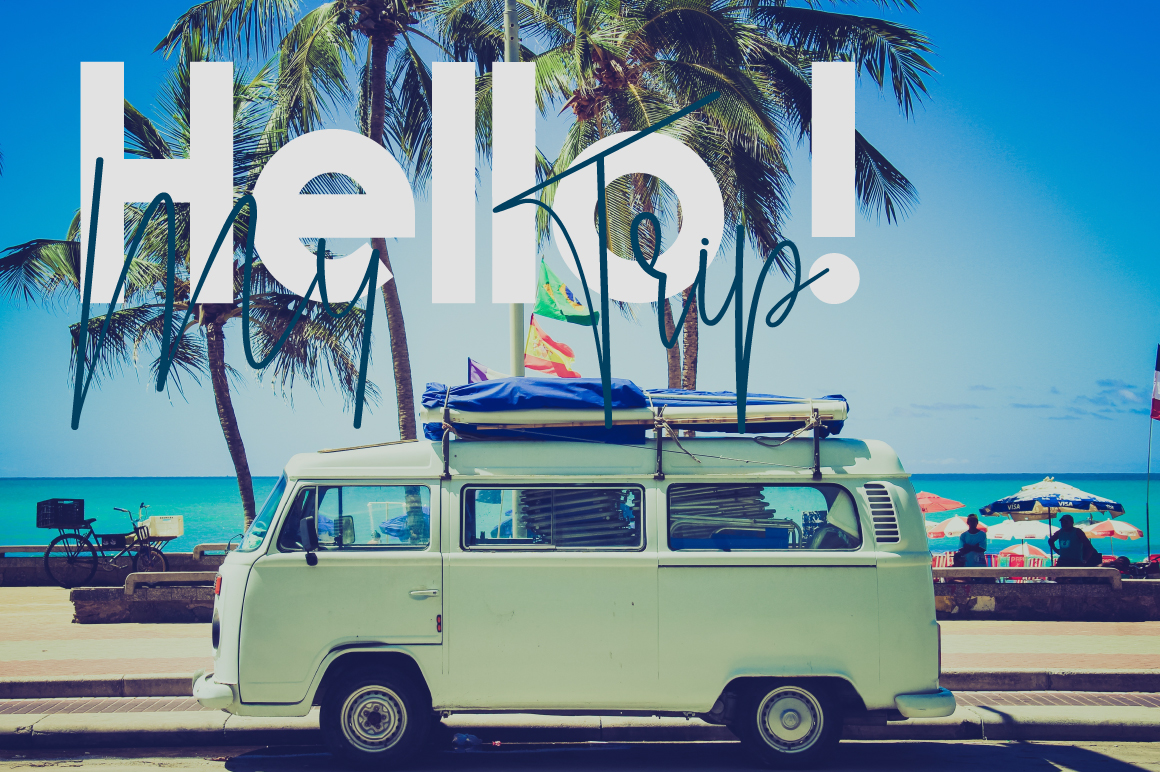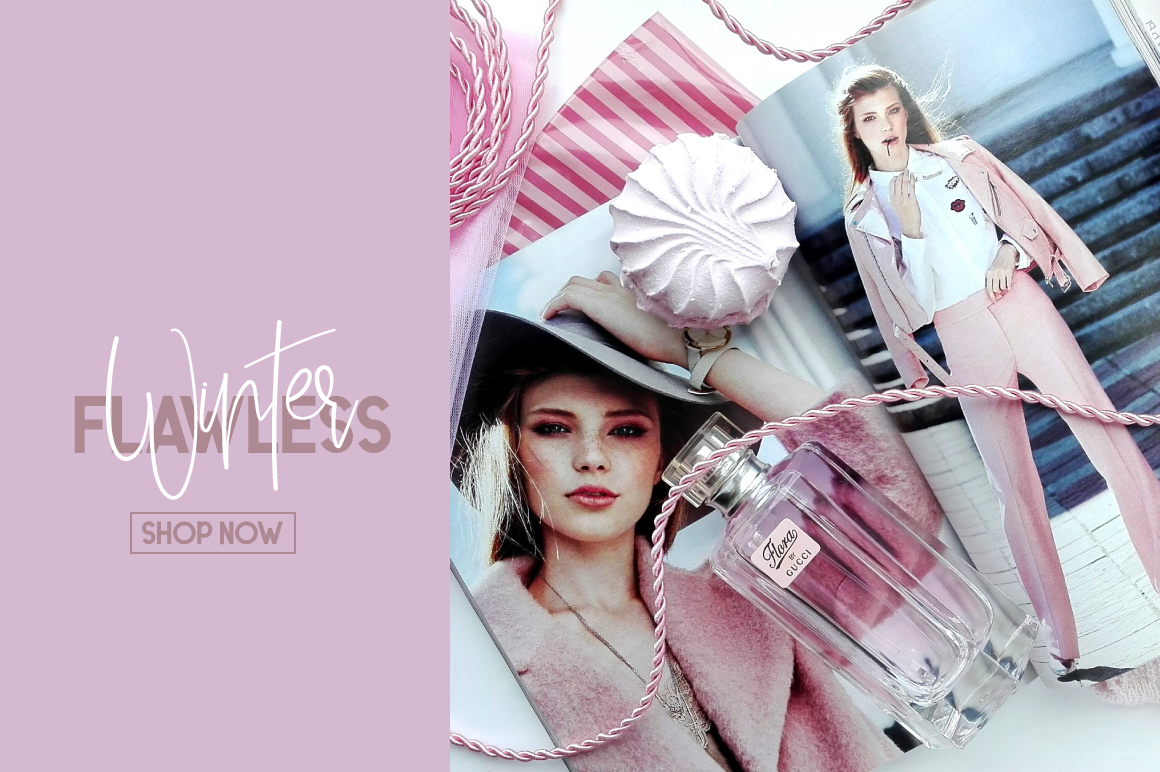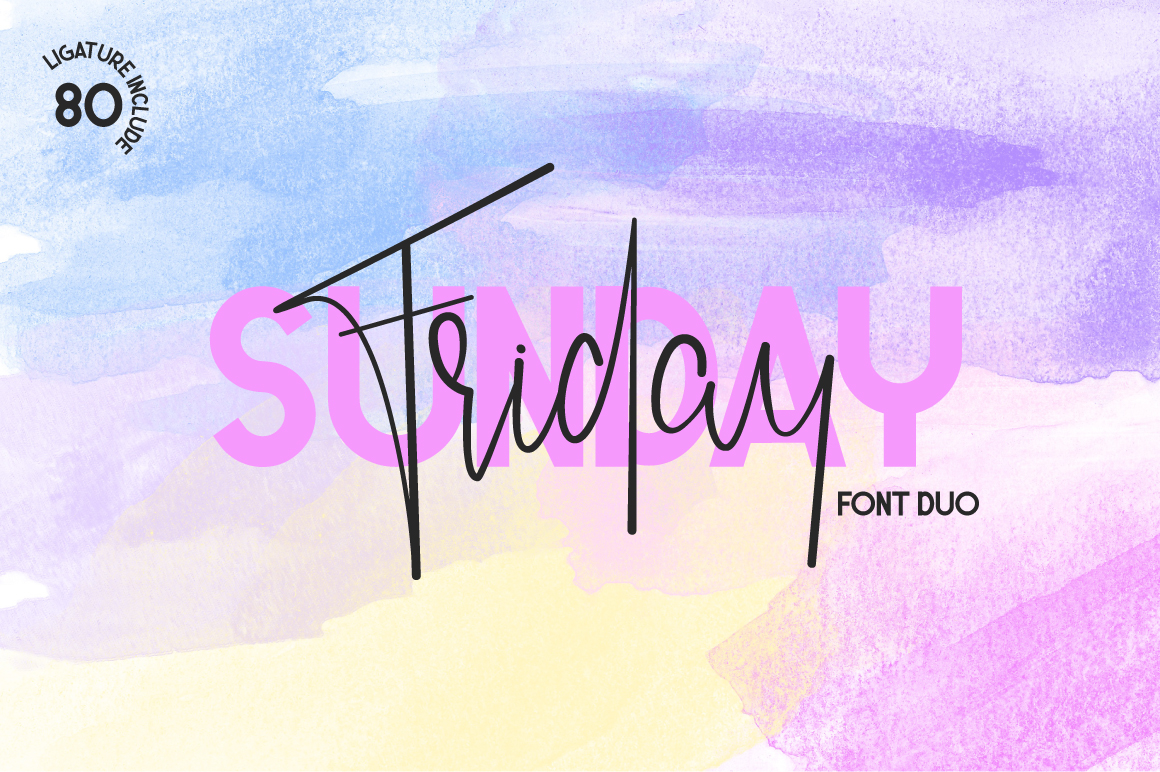
Hansville Sans Font Family
Hansville is a versatile font family. Strong capitals and a smooth, open lowercase are effective in a variety of applications. Hansville works great in branding, logos, headlines, high fashion, web design. The different weights give you a full range to explore a whole host of applications, from a tech startup, local events to sports matches.
Designer Name: Naharstd